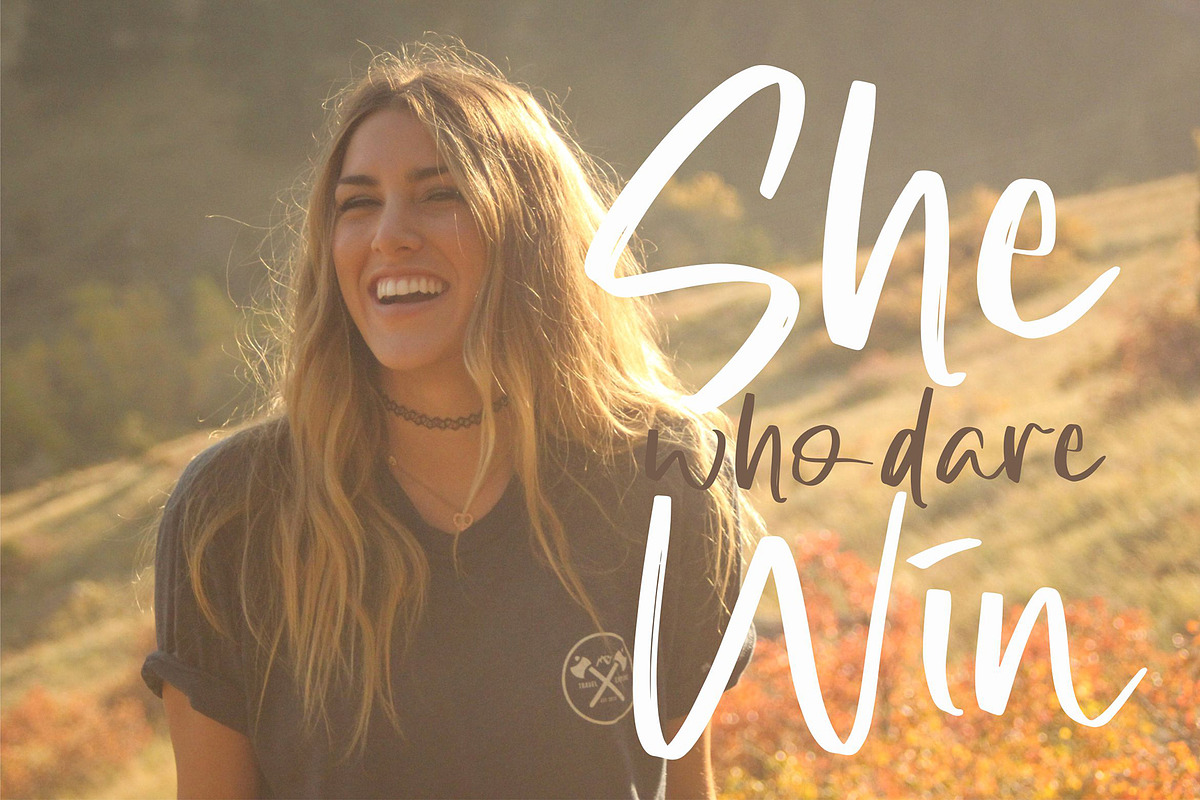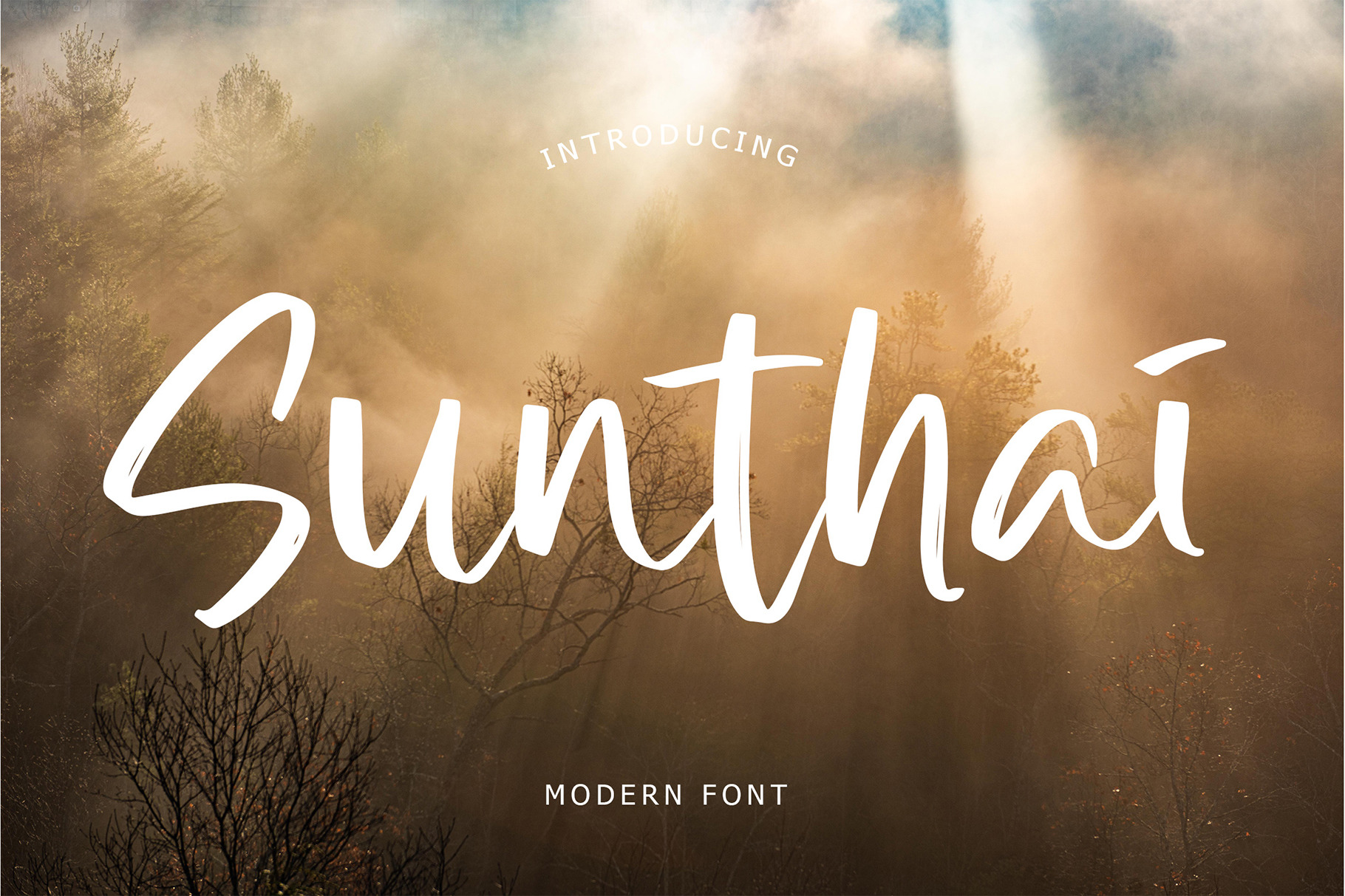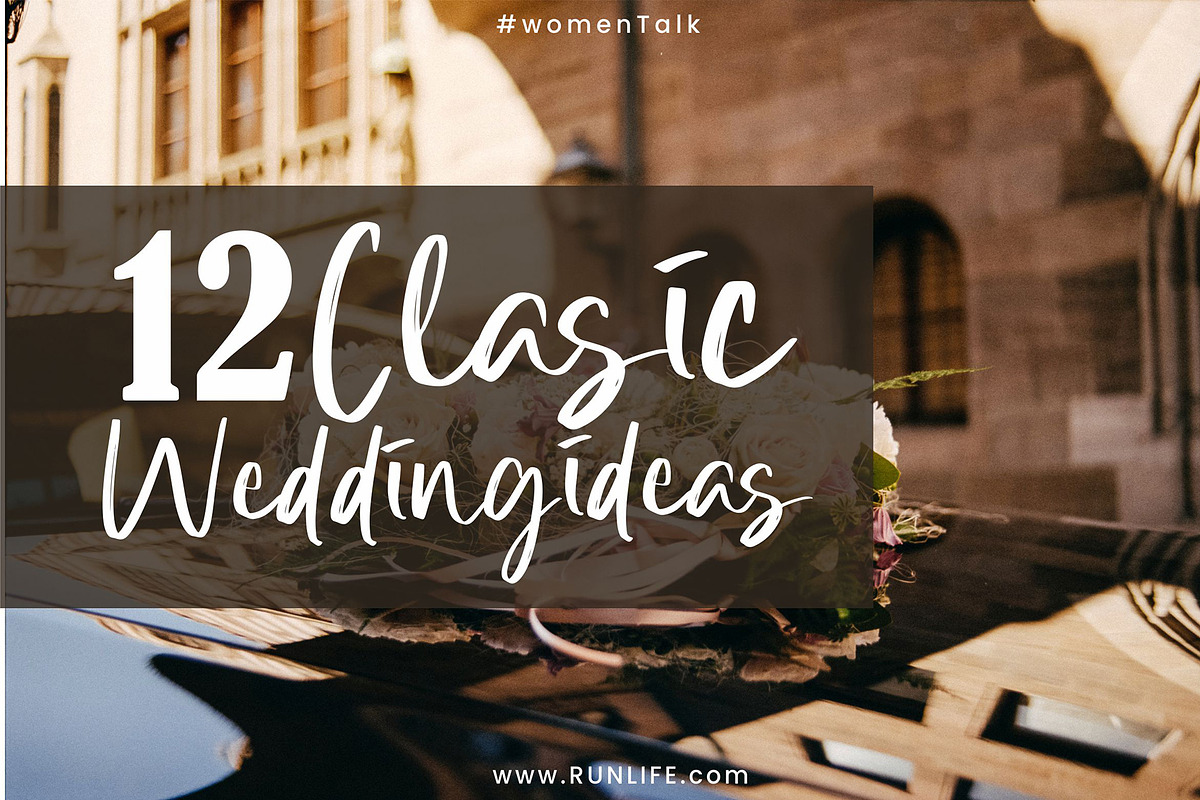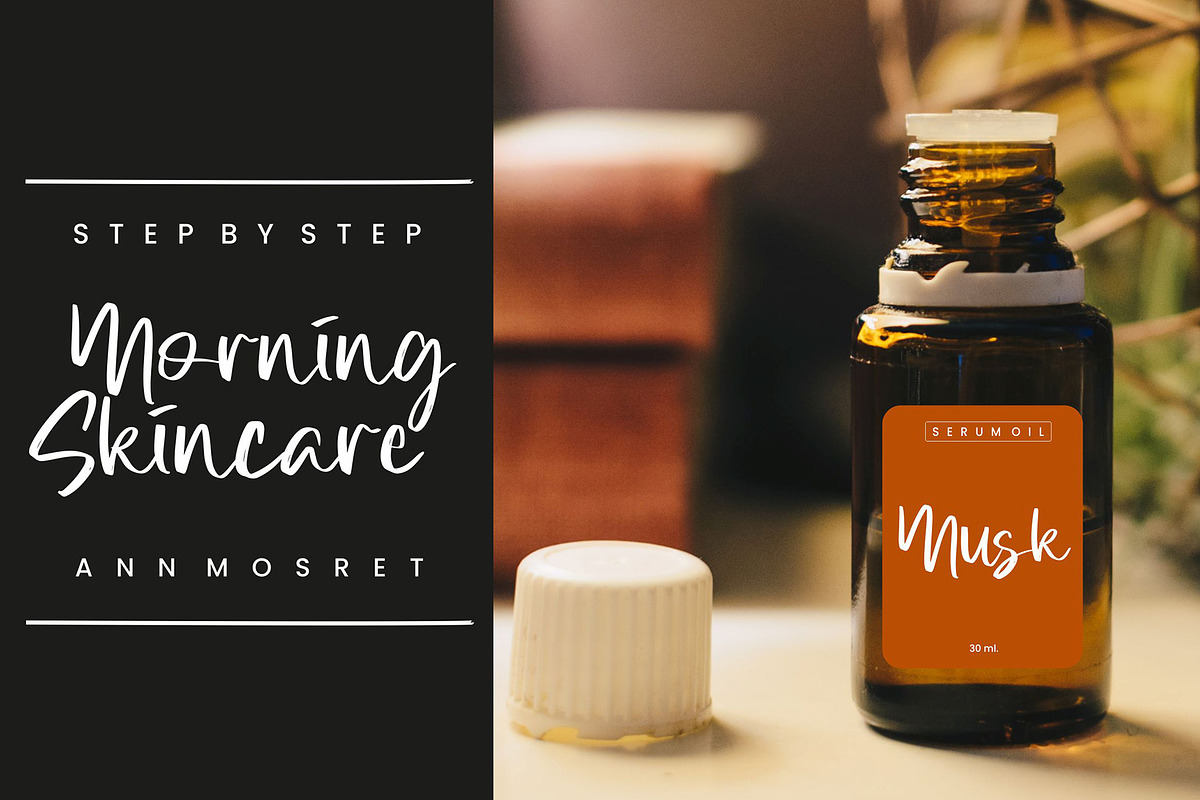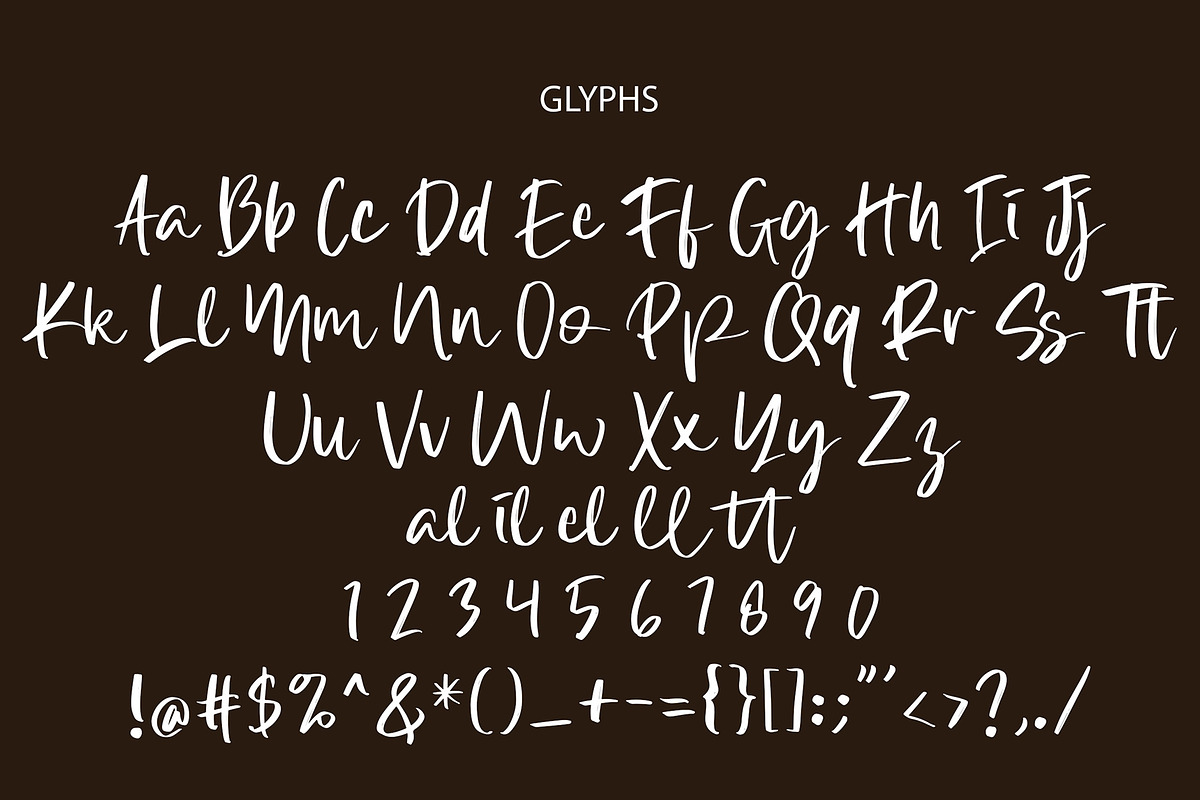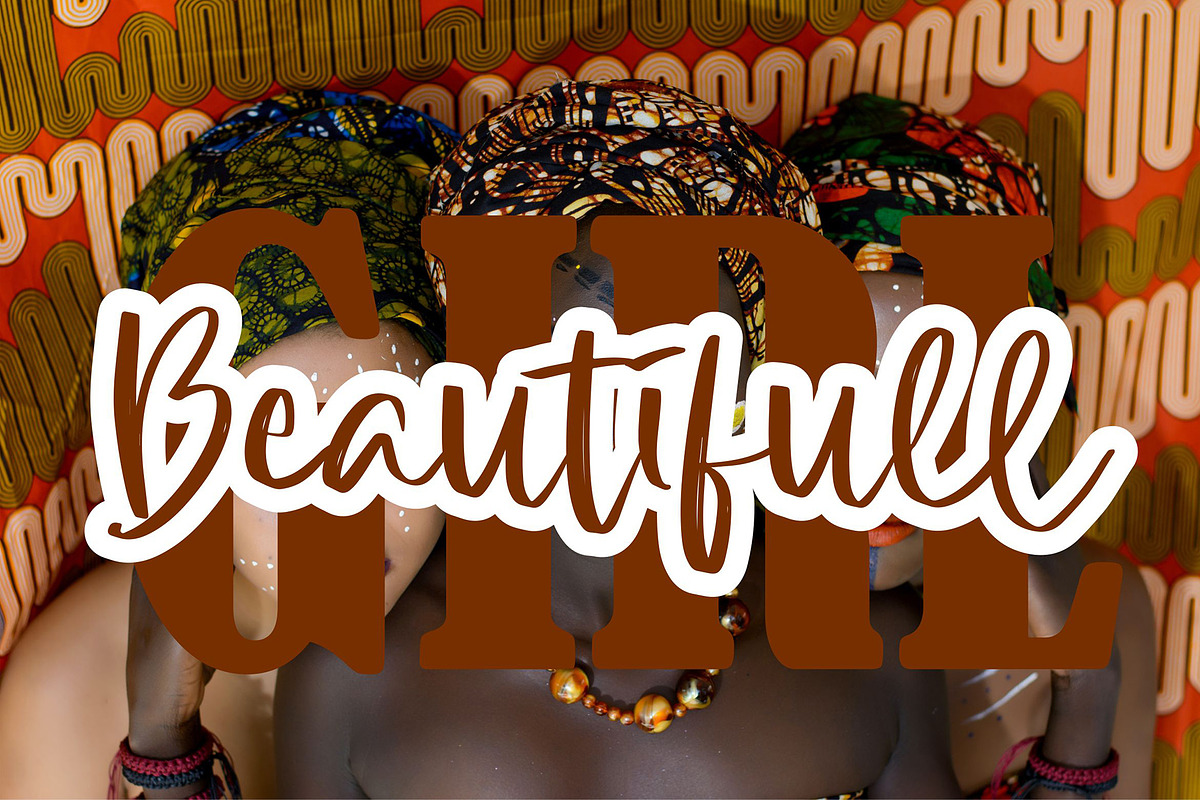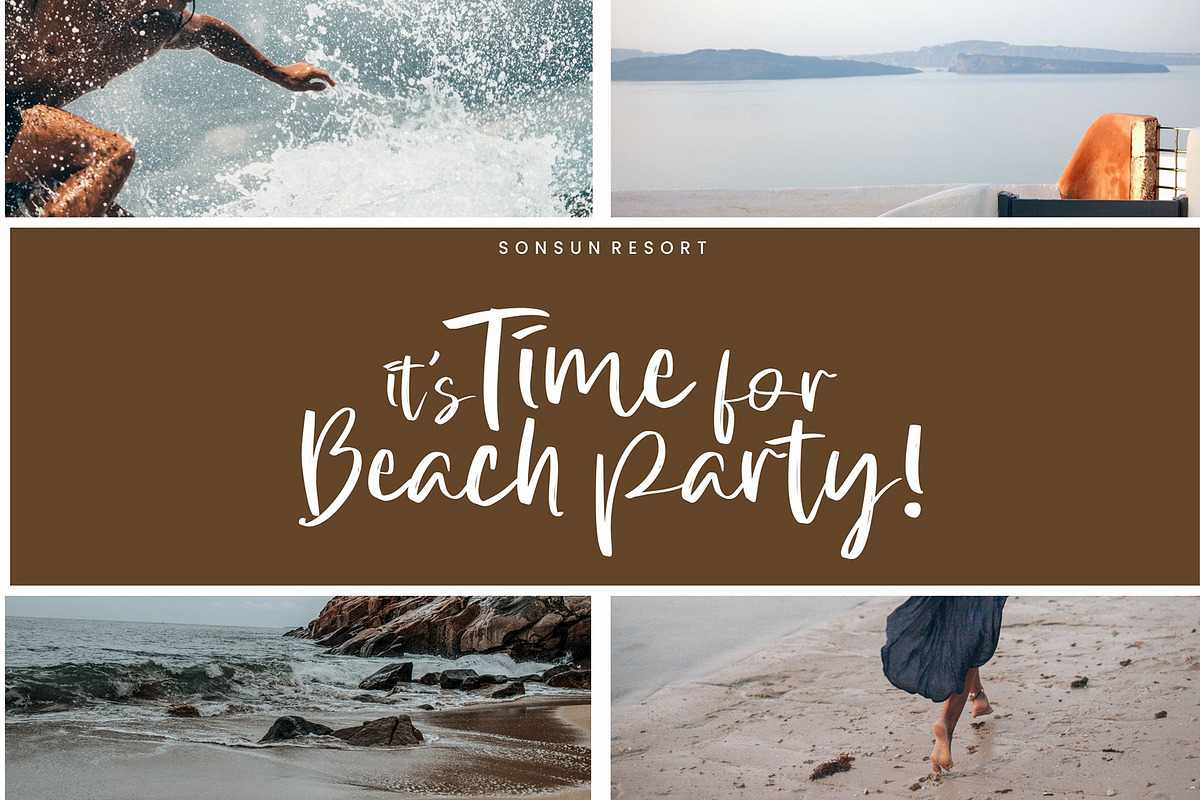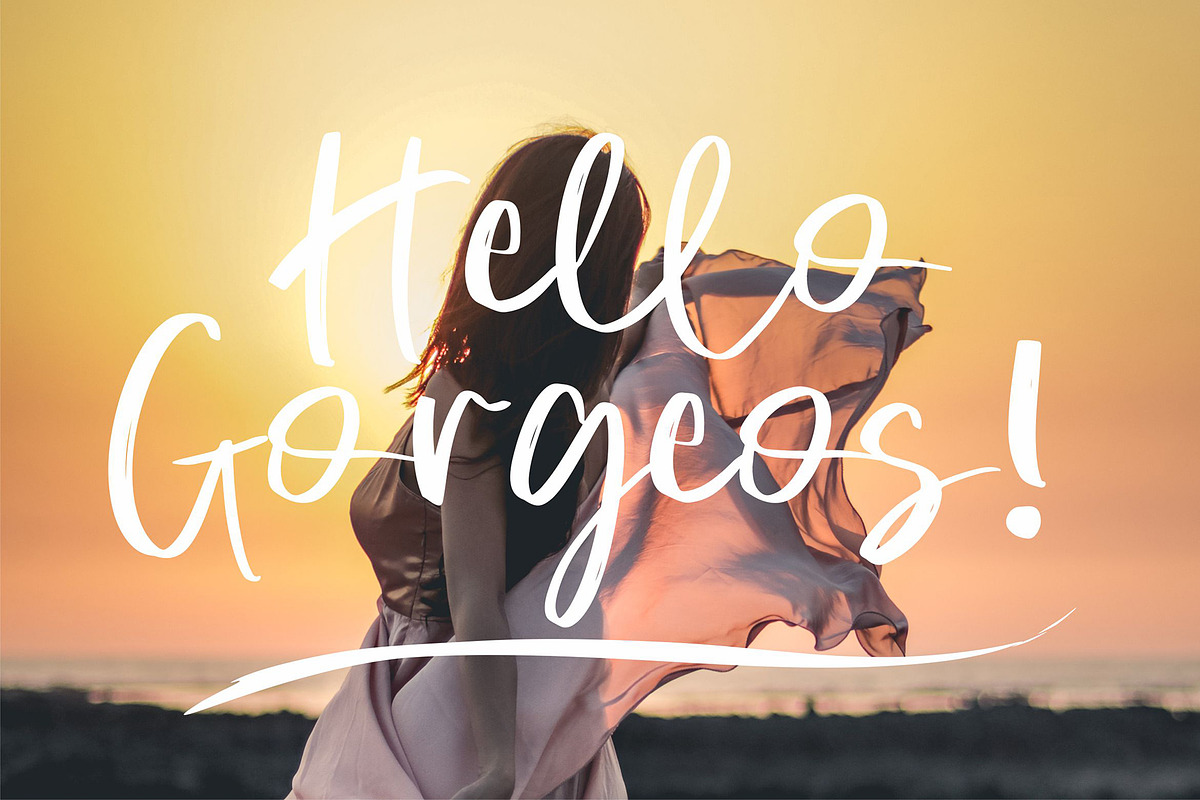
Sunthai Modern Font
Sunthai is modern script with brush style. This font perfect for branding projects, logo, tshirt designs, social media posts, advertisements, product packaging, product designs, label, watermark, invitation, stationery and any projects